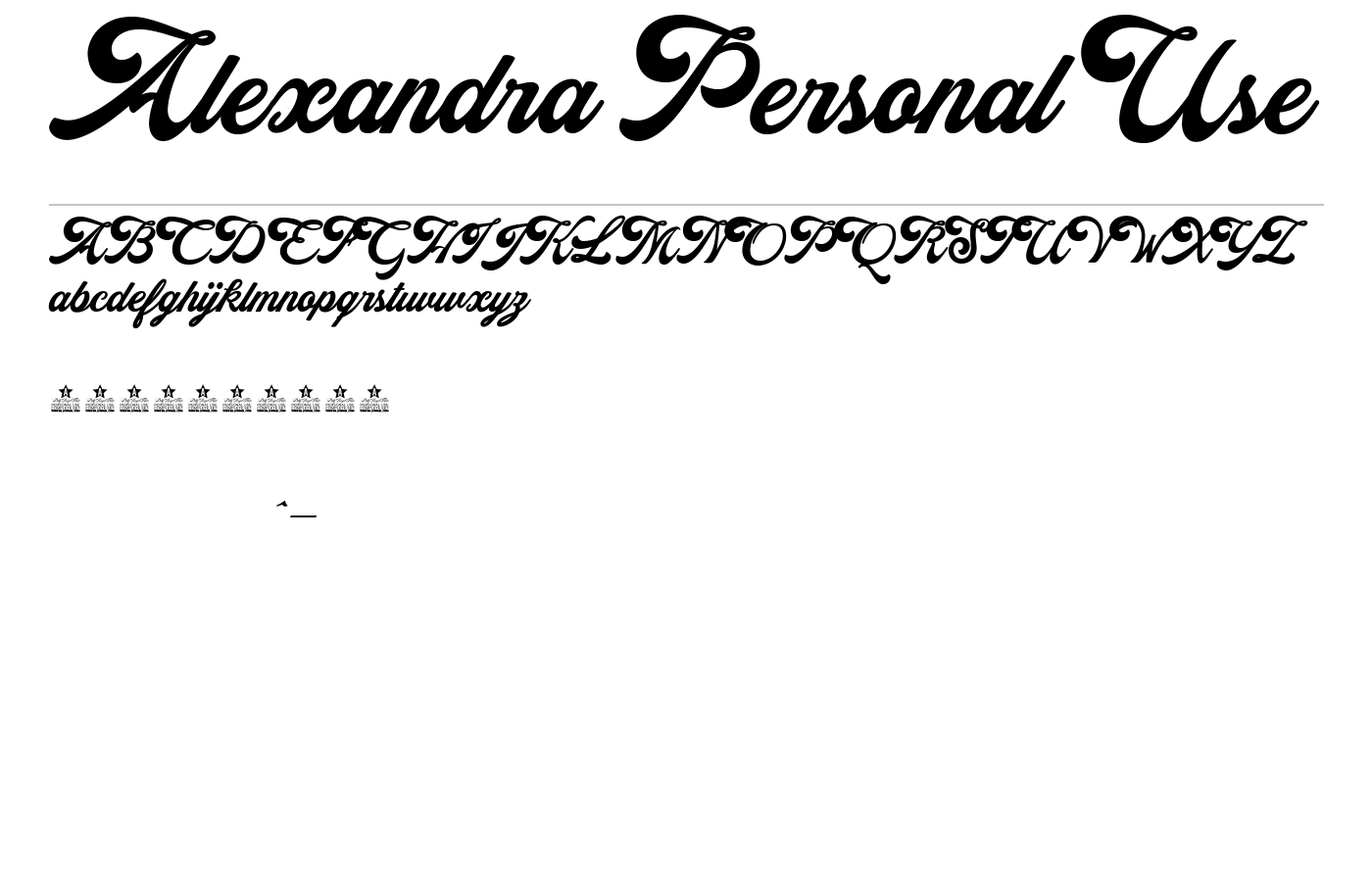
Alexandra Personal Use is a bold, elegant script font characterized by its smooth, flowing strokes and classic calligraphic style, featuring high contrast between thick and thin lines. Its decorative uppercase letters and neatly connected lowercase letters convey a refined, sophisticated personality, making it ideal for invitations, branding, and luxury design projects that seek a timeless yet expressive touch. This font excels in creating standout headlines and logos where a graceful and personal feel is desired.
Alexandra Personal Use Font
About Alexandra Personal Use Font